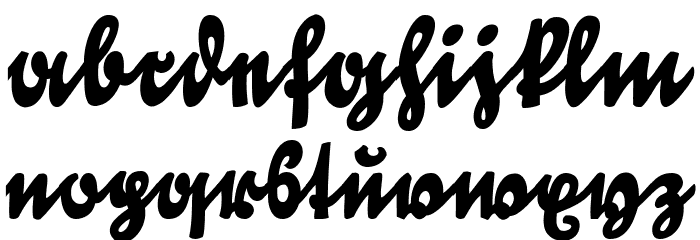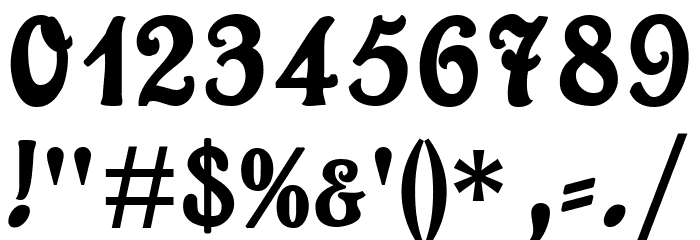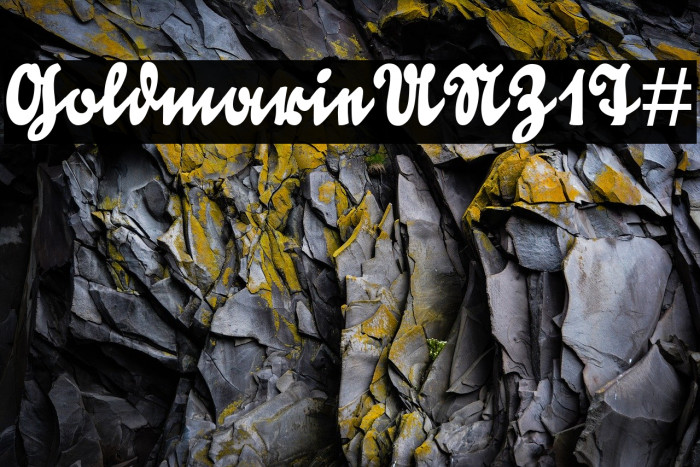
GoldmarieUNZ1T# Font
This font features a bold and expressive script style, characterized by its flowing, cursive letterforms. The strokes are thick and consistent, giving it a strong presence. The uppercase letters are ornate, with intricate loops and swirls, while the lowercase letters maintain a more straightforward cursive style. Numbers and special characters are designed to match the overall aesthetic, with a playful yet elegant appearance. The font's design is reminiscent of traditional calligraphy, lending it a classic and sophisticated feel.
A bold, expressive script font with flowing, cursive letterforms and ornate details.
- Proposed Projects: Ideal for wedding invitations, branding, logos, and decorative headlines.
- Category: Script
- Overall Style: Classic
- Use Case: Logos, Decorative headlines, Invitations